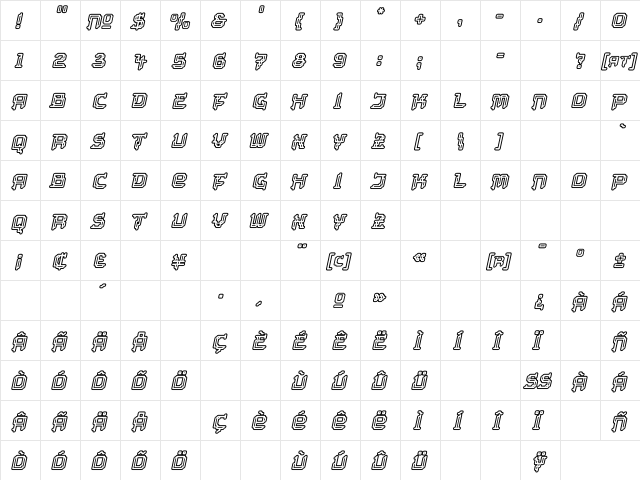
Tipi Slanted Electric Display
| Foundry | Schmalfett |
| Designer | Thomas Mettendorf |
Design Context for Tipi Typeface
Tipi has a distinctly futuristic character, with geometric precision and clean angles that feel at home in technology, gaming, and sci-fi contexts. The slanted form adds forward momentum and visual energy.